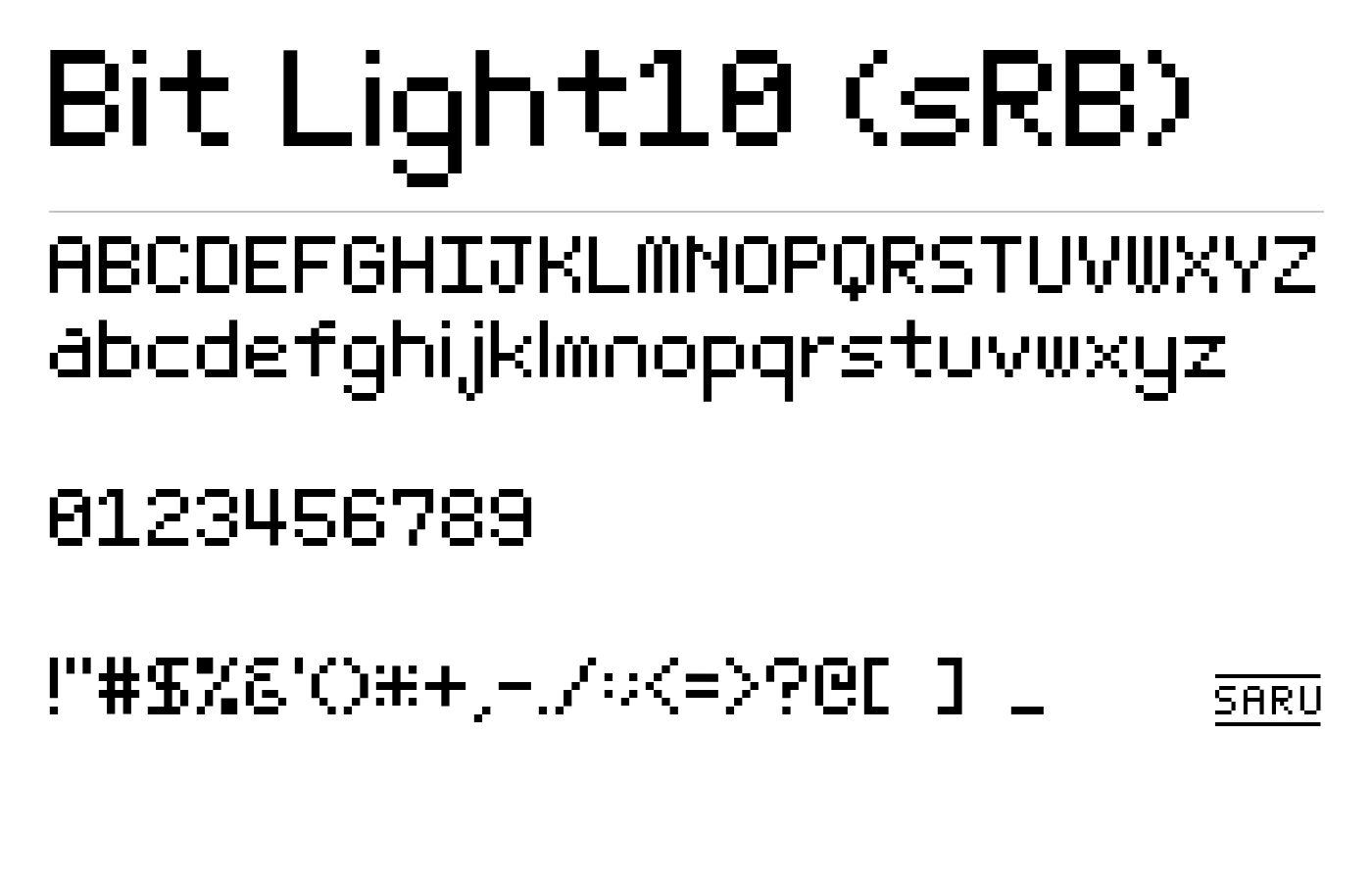
Bit Light10 (sRB) is a pixelated sans serif font with a lightweight, monospaced design that evokes a retro, digital feel reminiscent of early computer screens or video games. Its sharp, blocky letterforms and consistent stroke weight create a modern, tech-savvy personality perfect for digital art, coding interfaces, or gaming logos. This font works best in headlines, branding, and any project seeking a nostalgic yet clean and minimalist aesthetic.
Bit Light10 (sRB) Font